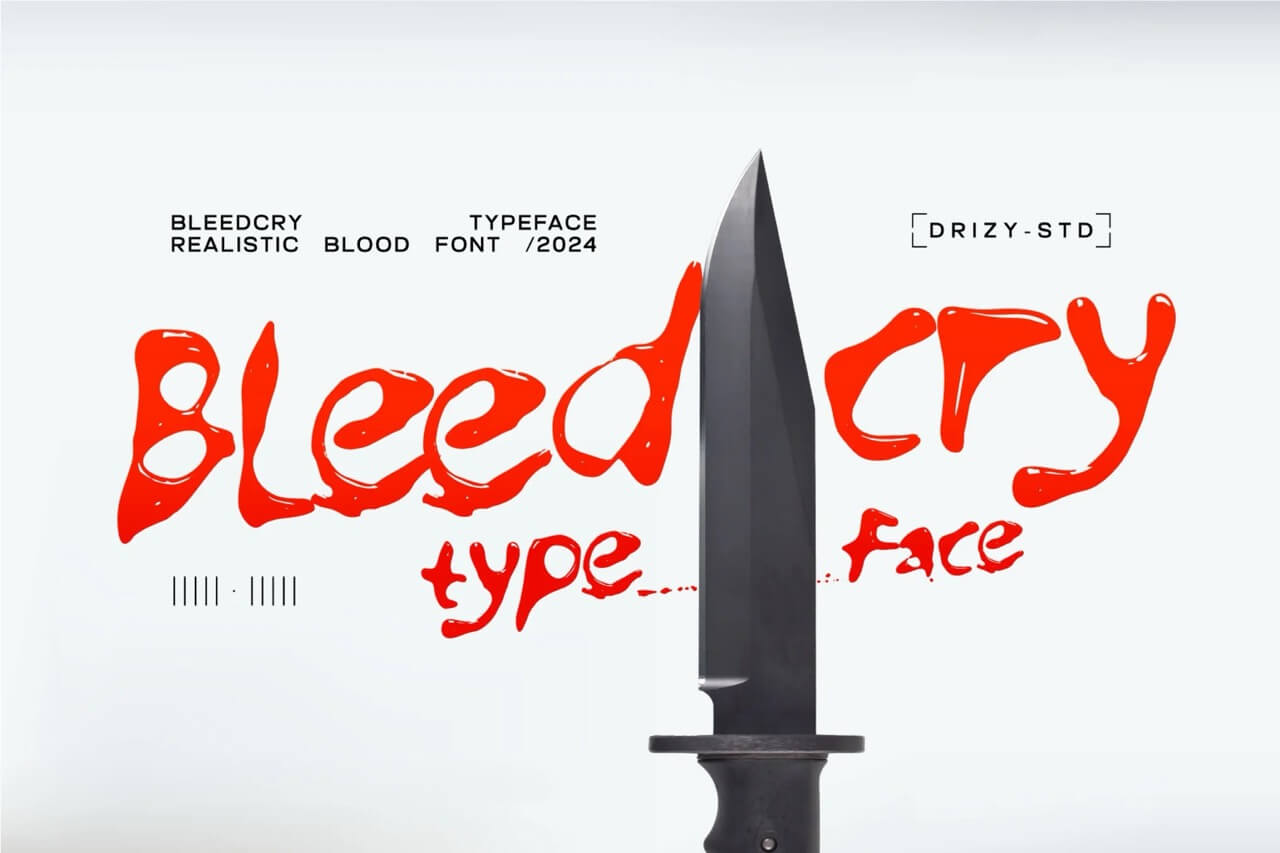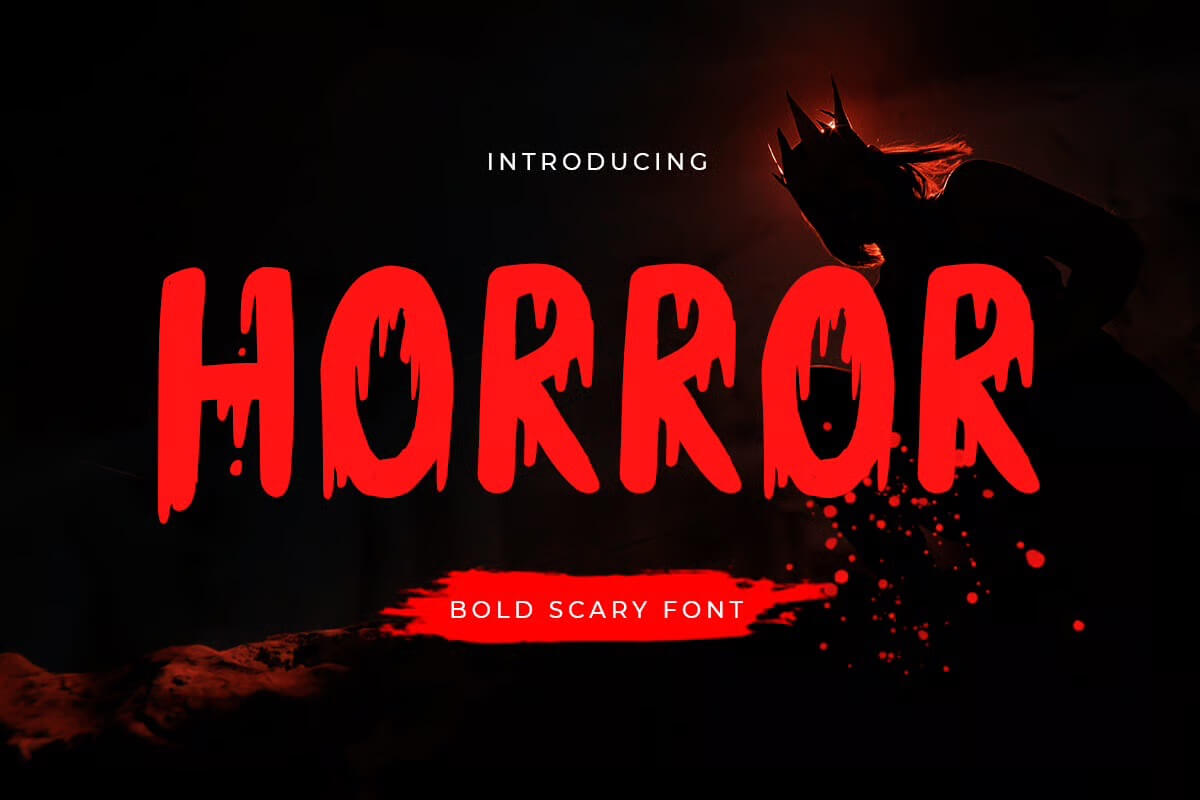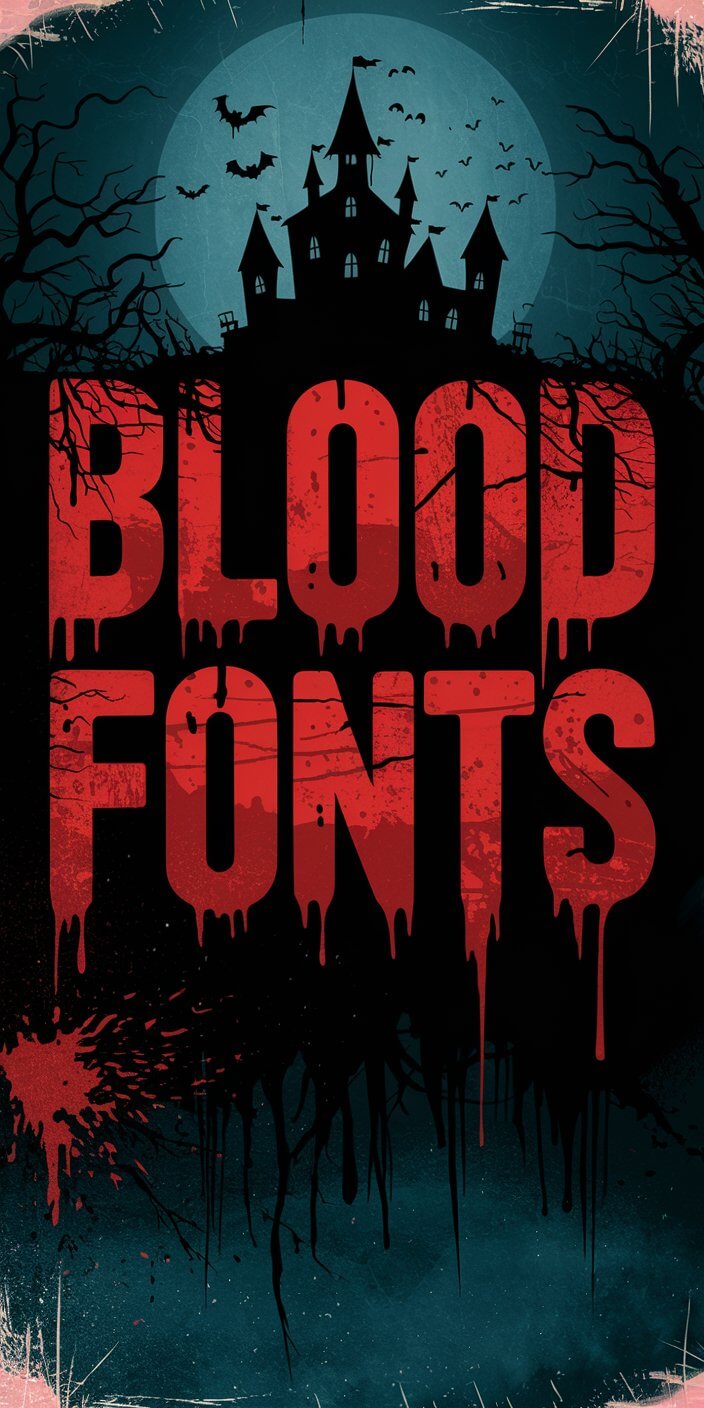
7 Blood Font Download: Bloody & Horror Fonts
Designing something scary good this season? Whether you’re planning a Halloween party invite, a horror movie poster, or just looking for blood-dripping, goosebump-raising fonts to add flair to your next graphic project, this post is going to save you hours of scrolling through random font directories.
I’ll walk you through the free blood fonts I’ve actually used, downloaded, tested, and, yes, kept in my permanent collection because they’re just that bold, dramatic, and eye-catching.
These aren’t just splattered for fun. Some of them scream murder mystery, some whisper vampire elegance, and a few are straight out of your favorite zombie movie.
Distressed poster advertising six creepy blood fonts for Halloween designs on a spooky, blood-splattered background.
What Makes a Blood Font So Powerful in Horror Design?
Let’s be real. Fonts are not just pretty letters, they’re emotion. A well-designed blood font instantly tells your audience: “Danger ahead. Proceed with fear.”
The drip, the jagged brush strokes, the uneven kerning, they all work together to create a feeling of tension.
In horror, that tension is gold. Whether you’re designing a movie poster, a zombie-themed party invite, or a creepy title card, you want that instant impact. These fonts deliver that.
They’re also great when you want to subtly allude to death, murder, or mystery without spelling it all out. The right font says what your copy doesn’t need to.
1. Blood of the Dracula
A dramatic horror-themed design features a person in a dark coat, surrounded by candles. Bold red text reads "Blood of the Dracula."
Blood of the Dracula, is pure vintage horror magic. It’s inspired by the chilling typography of old B-movie posters, giving off a spooky, dramatic vibe. Perfect for Halloween projects or anything that needs a touch of eerie flair.
2. Bleedcry Typeface
Knife beside "Bleed Cry" text in red, styled as blood. Text promotes a realistic blood font for 2024. White background, minimalistic design.
Bleedcry is an edgy typeface that feels like it’s dripping with drama and intensity. Perfect for noir, horror, or crime-inspired designs, it captures the raw essence of blood with its artistic, gritty style. Multilingual and versatile too.
3. Horror
Silhouette of a person wearing a crown against a dark background. Red text reads "Horror" with a tagline "Bold Scary Font."
This quirky font is perfect for adding a scary yet fun vibe to your designs. It’s ideal for Halloween projects, posters, or merchandise, with its unique shapes and spooky feel that make your work stand out effortlessly.
4. Wicked Destiny
Eerie Halloween-themed design with graveyard setting, spooky trees, and full moon. Features "Wicked Destiny" in drippy font, promoting horror vibes.
Wicked Destiny is a drippy font that screams spooky vibes. Its hand-drawn, rough texture feels perfect for Halloween projects or anything horror-themed. With its eerie, uneven edges and dripping letters, it adds a sinister, dramatic touch to your designs.
5. Kesambet
The image features red horror-themed, dripping text "KESAMBET" on a dark background with "INTRODUCING" and "HORROR FONT" above and below in smaller font.
Kesambet is a bold and edgy horror font that screams drama and intensity. Its distressed, jagged design makes it perfect for spooky, fantasy, or war-themed projects. With OTF and TTF files, it’s versatile and ready for creative adventures.
6. Gendaruwo
Dark, eerie image showcases the text "Gendaruwo" in a horror-themed font. Background features a subtle skull image, enhancing the spooky atmosphere.
Gendaruwo is a spooky, blood-dripping font that screams Halloween vibes. Perfect for posters, banners, comics, or movie titles, it adds a creepy, dramatic touch to your designs. Dive in and let your words ooze with eerie charm.
7. Whisper Night
Horror-themed font advertisement with eerie green text: “Whisper Night”. Includes two styles: regular and outline, by Letterhend Studio, YK City.
Whisper Night is a bold, edgy display font with a spooky vibe that’s perfect for horror and thriller designs. Its unique shape works great for logos, invitations, and more. It’s versatile, multilingual, and packed with OpenType features.
Where Can You Find the Best Free Bloody Fonts?
You can absolutely go down the rabbit hole of FontSpace, 1001 Fonts, and Dafont. I’ve done it.
But be warned: not all free fonts are truly free for commercial use, and many of them look the same after a while. What you want is a unique, memorable typeface that works well in digital projects, keeps legibility, and doesn’t require a degree in typography to use.
I’d say your best bet for free fonts with blood would be to use Canva.
What Projects Can You Use Blood Fonts For?
You’d be surprised how far these fonts go beyond horror movie titles.
✓ Halloween party flyers
✓ Spooky digital invites
✓ T-shirt mockups
✓ Creepy YouTube thumbnails
✓ Poster designs
✓ Canva templates for Etsy
✓ Murder-mystery dinner menus
✓ Even custom trick-or-treat bag designs
Basically, if you’re doing anything remotely scary, dramatic, or horror-themed, you’re going to want a bloody font that sets the tone in one glance.
How to Choose a Bloody Font That Matches Your Theme?
Here’s the thing: not every blood font fits every project.
Want something theatrical? Go for a bold, thick-stroked font with a heavy drip effect.
Making a vintage horror vibe? Use a brush or hand-lettered style that looks like it was scratched into a wall.
Designing for kids? Pick something spooky but still playful. Think “Scooby Doo” not “Saw.”
I usually ask: Does this font add to the drama or distract from the message? The best ones will amplify your design without overpowering the text.